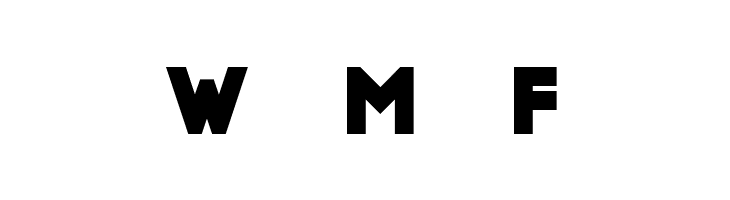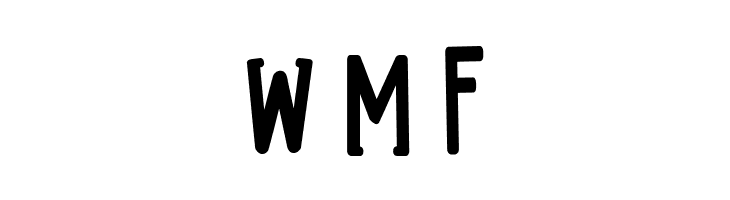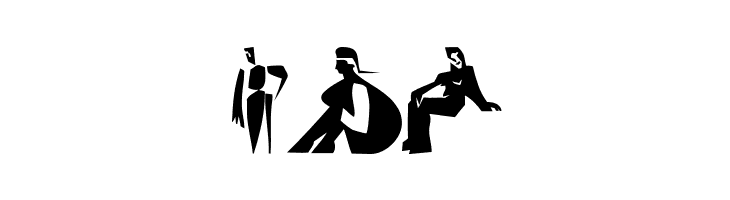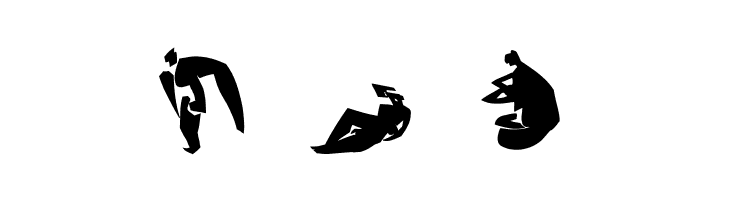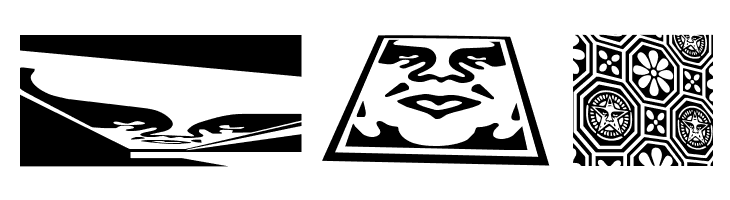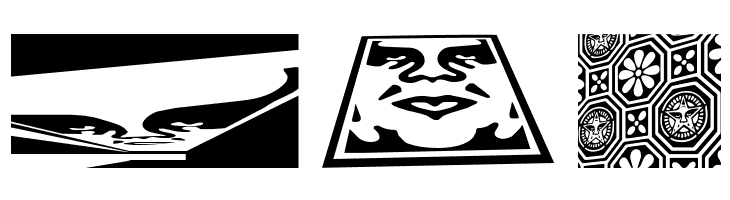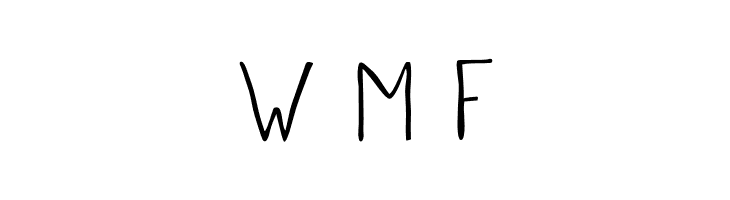
A modern, clean sans-serif font with rounded edges and uniform strokes.
An artistic font featuring abstract human figures as characters.
Abstract font made from human figure silhouettes in various poses.
A playful and quirky font with rounded and angular elements.
A playful, handwritten font with an informal and friendly style.
A collection of graphic symbols with bold, intricate designs and a street art aesthetic.
A decorative and artistic typeface with intricate designs and patterns.